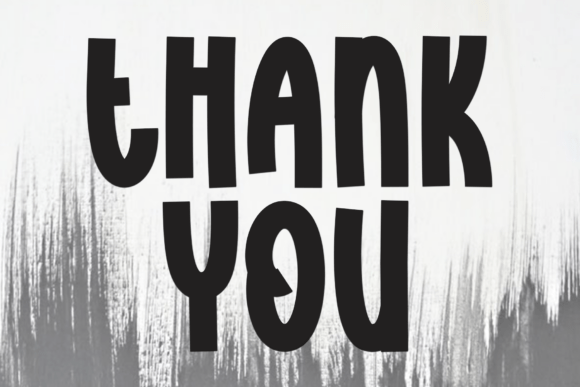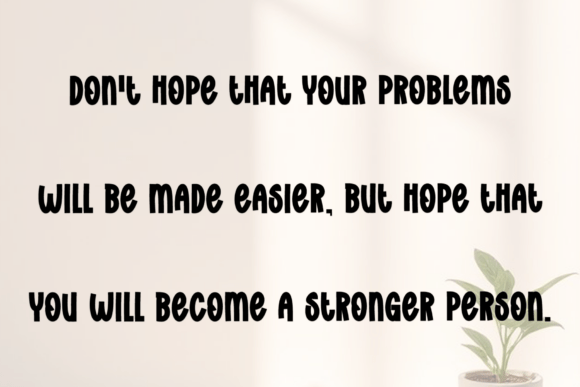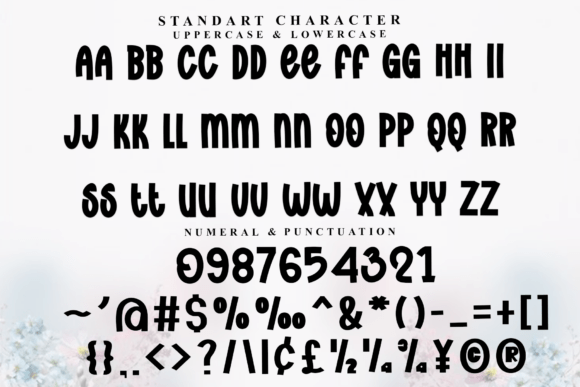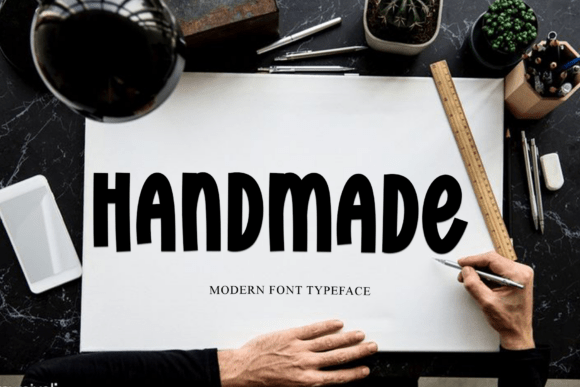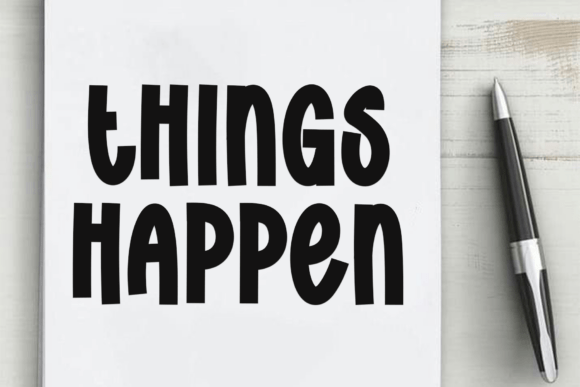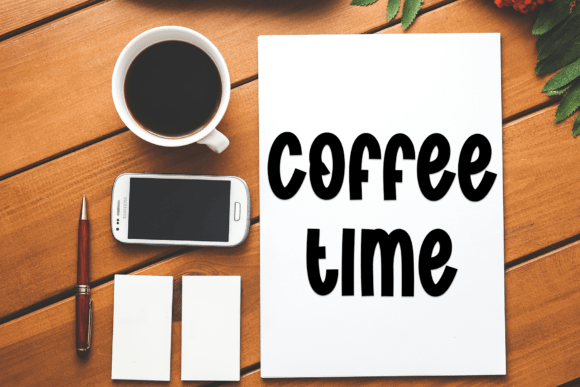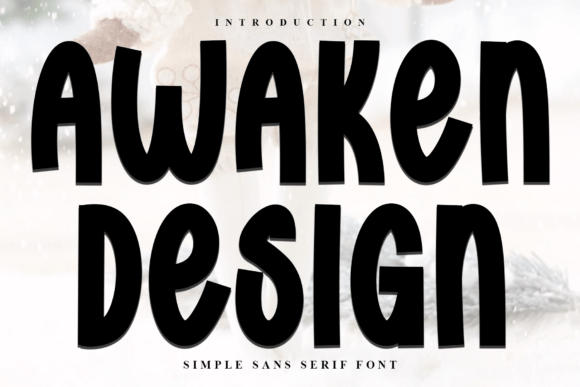
Awaken Design Font: A Festive and Merry Typeface for the Holiday Season
As the holiday season approaches, designers and crafters are on the lookout for typography that captures the spirit of the season. Look no further than the Awaken Design Font, a festive and merry typeface that adds a touch of enchantment to your designs. With its decorative elements and whimsical flair, this font is perfect for greeting cards, gift tags, and holiday-themed projects.
Awaken Design Font is a beautifully crafted typeface that embodies the magic of the holiday season. Its decorative elements and whimsical flair make it perfect for adding a touch of festivity to your designs. Whether you’re creating greeting cards, gift tags, or holiday-themed projects, this font brings a cheerful and nostalgic ambiance to your words.
Awaken Design Font is a versatile typeface that is perfect for designers and crafters alike. Its festive and merry design makes it ideal for holiday-themed projects, while its whimsical flair adds a touch of personality to any design. Whether you’re creating digital or print materials, this font is sure to add a touch of magic to your typography.
One of the best features of Awaken Design Font is that it is PUA encoded, which means you can access all of the amazing glyphs and ligatures with ease. This makes it easy to add decorative elements and special characters to your designs, giving you even more creative freedom.
Use Awaken Design Font for:
- Greeting cards: Add a touch of festivity to your holiday greeting cards with Awaken Design Font.
- Gift tags: Create personalized and festive gift tags with this beautiful typeface.
- Holiday-themed projects: Perfect for creating festive and merry designs for the holiday season.
- Digital and print materials: Use Awaken Design Font for both digital and print materials, including social media graphics, flyers, and more.
Why Choose Awaken Design Font?
There are many reasons to choose Awaken Design Font for your holiday-themed projects. Here are just a few:
- Festive and merry design: This font captures the spirit of the holiday season like no other.
- Whimsical flair: Adds a touch of personality and whimsy to any design.
- PUA encoded: Easy access to glyphs and ligatures for added creative freedom.
- Versatile: Perfect for both digital and print materials.
Tips for Using Awaken Design Font
Here are a few tips for getting the most out of Awaken Design Font:
- Experiment with different sizes and colors to add visual interest to your designs.
- Use the glyphs and ligatures to add decorative elements to your designs.
- Pair with other festive fonts for a unique and eye-catching look.